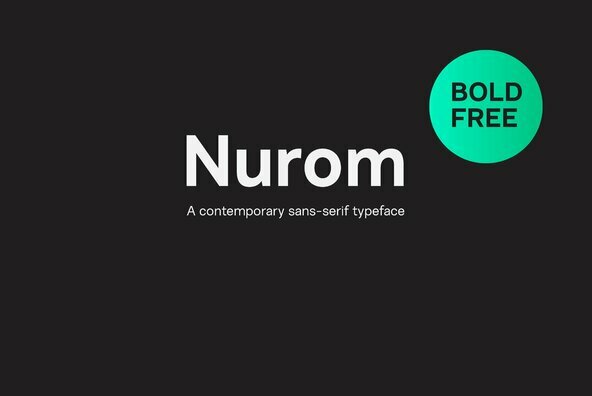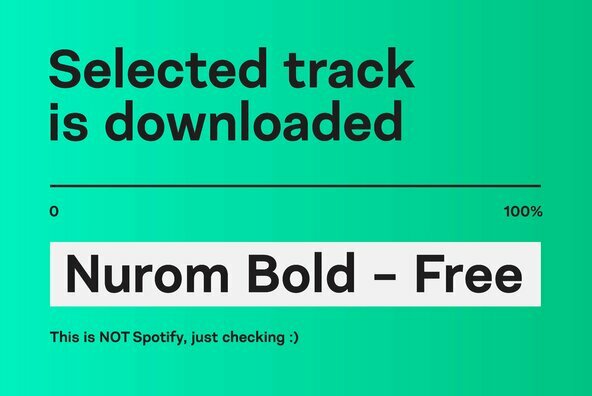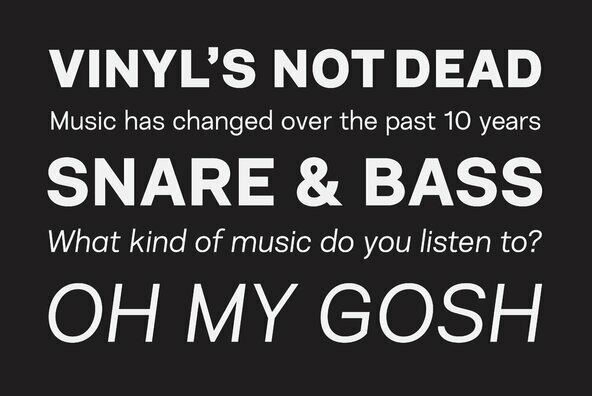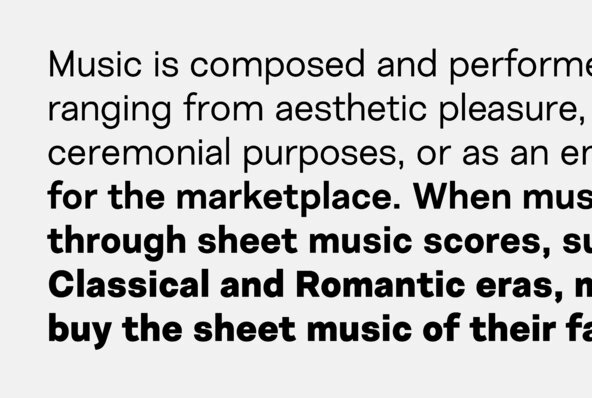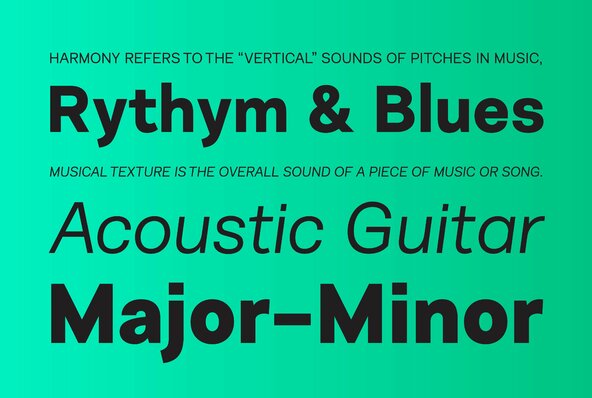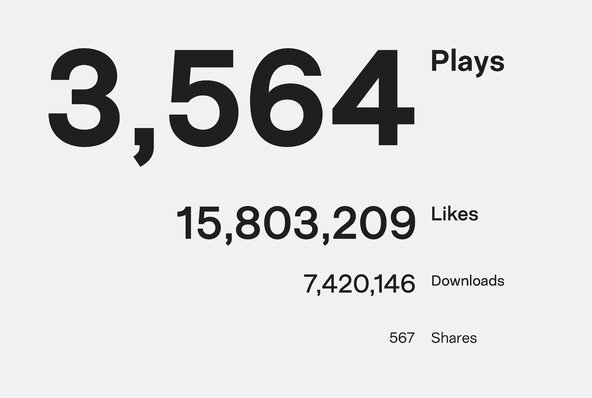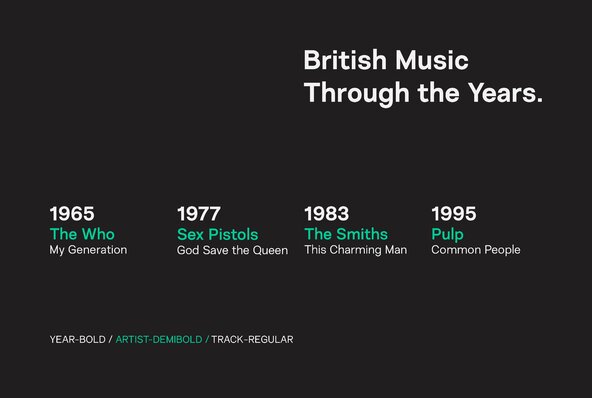
Foundry: The Northern Block
A contemporary sans-serif typeface. It's structure takes influence from the early grotesque style, resulting in a precise and legible font with a charming character. Details include 8 weights, a standard character set, manually edited kerning and Euro symbol.